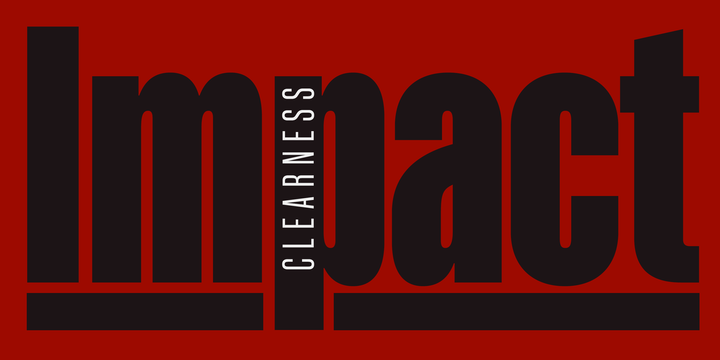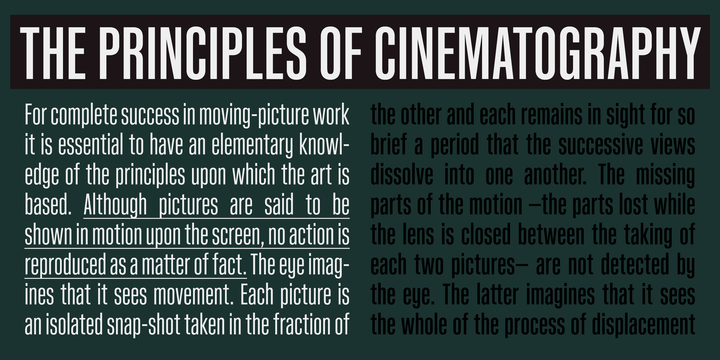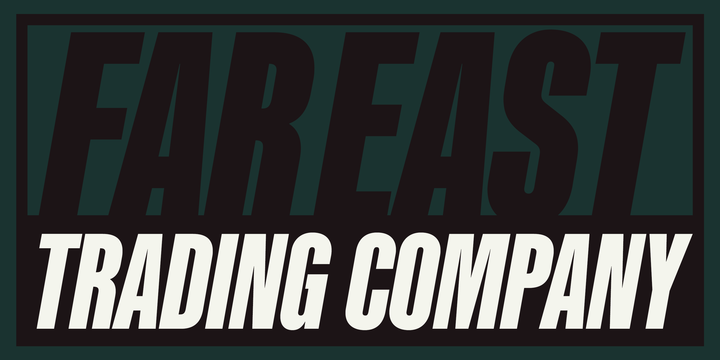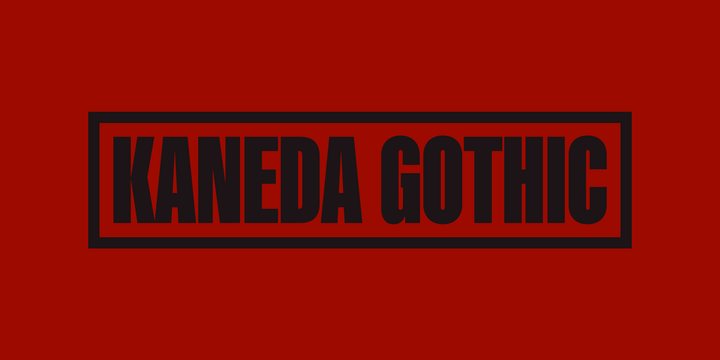
Kaneda Gothic is a whole new basic gothic. Philosophically, Kaneda Gothic is the one of the niche answers in the interspace between these antinomies.
Image of near-future and giant metropolis in 80s, 90s vs our real life in the 2010s,20s.
What we acquired by Industrial, scientific developments vs our emotional demands, imagination in our brain.
Design transition in short period of time vs the consistency of real function which laid along the human history.
Technically, Kaneda Gothic has a geometric letterform which called gaspipe or Gothic in woodtype era.
But Kaneda has very sharp curves and lines for contemporary demands, that is to say, impact and clearness.
Geometric and clear letterform is perfect for eye-catching part such like company logo, movie title and pictures captions.
Consists of seven weights and their matching italics. Supporting almost all latin languages.